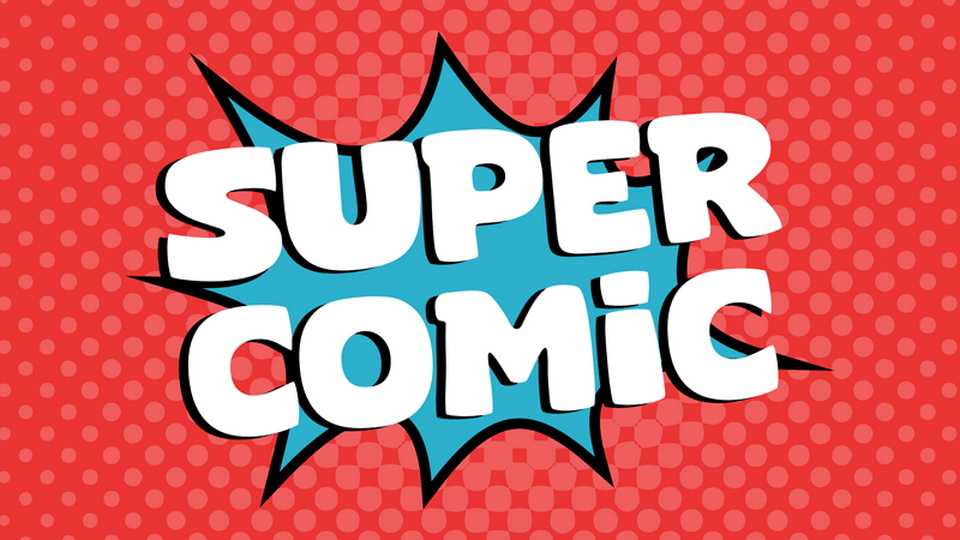
Download Super Comic font, a hand crafted cartoon typeface filled with a cheerful, bold vibe. Add a playful and quirky touch to your designs with Super Comic font.